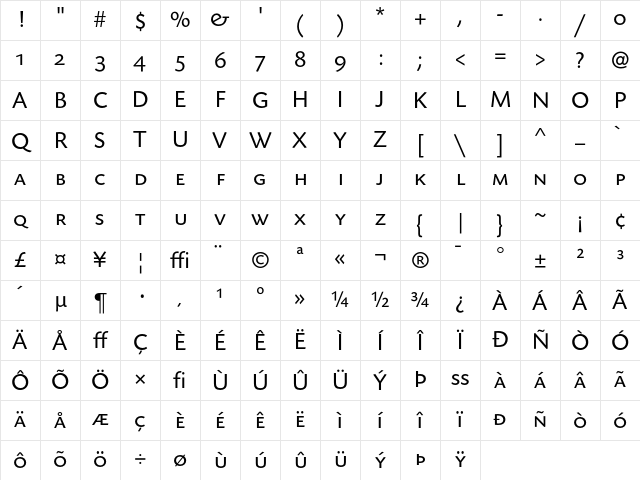
TodaySB-Caps Regular
Design Context for TodaySB-Caps
TodaySB-Caps is a composed and adaptable typeface that performs quietly and consistently across a wide range of design contexts.